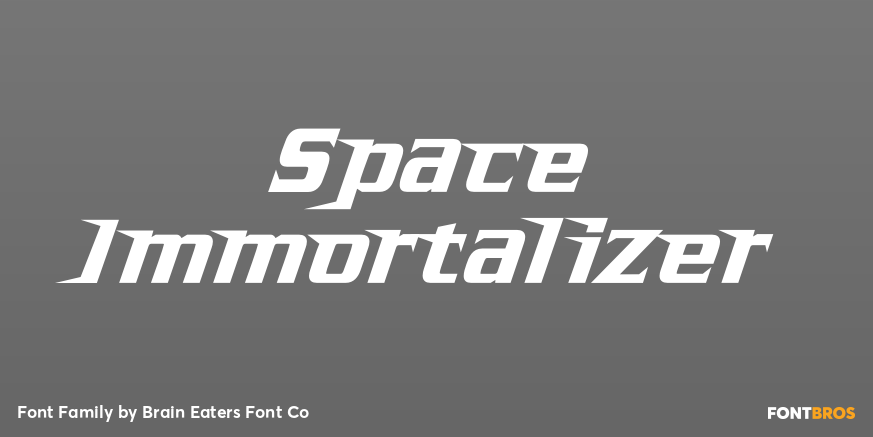
HomeFont BrosRetro (1936-1965)Space Immortalizer Retro (1936-1965)Wacky Space Immortalizer FacebookXPinterestWhatsApp 1 of 1 About Space Immortalizer If you were forced to make a mix tape of two ALL TIME CLASSIC movies from the 1970\’s namely Laser Blast and Star Crash.  DOWNLOAD ON FONT BROSThis font is sold and delivered by Font Bros. Font Canyon may earn a commission if you buy through this link. People also explored Cowboy Hat Font MFC Imperator Monogram Delvon Bold Font Restyla Script Font Busingen Am Hochrhein Font Frankenfriend Font Flying High – A handlettered script font Saranghae Font Morphesd Font 214 0 TagsSpace Immortalizer Font Previous articleBookeyed MartinNext articleBeaucoup LEAVE A REPLY Cancel reply Comment: Please enter your comment! Name:* Please enter your name here Email:* You have entered an incorrect email address! Please enter your email address here Website: Save my name, email, and website in this browser for the next time I comment. Personal Use Free My Shine Personal Use Free Read more about this font GoodFay Personal Use Free Read more about this font Po Beef Personal Use Free Read more about this font Luxima Personal Use Free Read more about this font BLOG Top 7 Google Fonts Alternatives for Faster and Privacy-Friendly Web Design (2025) Top 7 Google Fonts Alternatives for Faster and Privacy-Friendly Web Design (2025) When it comes to web typography, Google Fonts has long been the go-to... Where to Buy American Fonts Online in 2024 Free vs Paid Fonts: Why Investing in Premium Fonts Is Worth It To increase your work productivity, choose the most readable fonts.